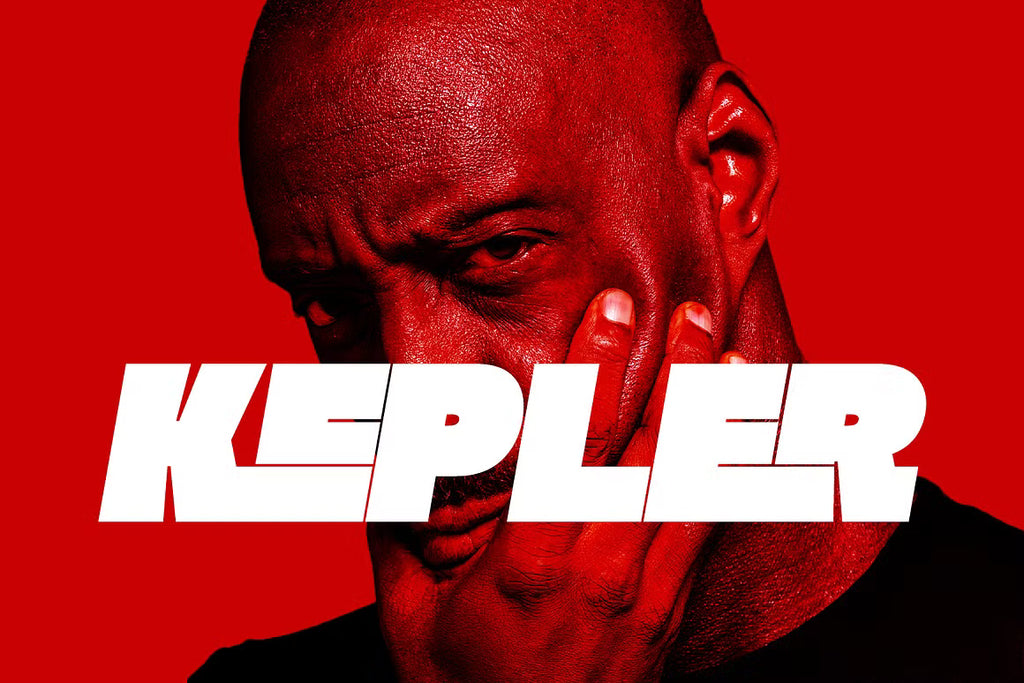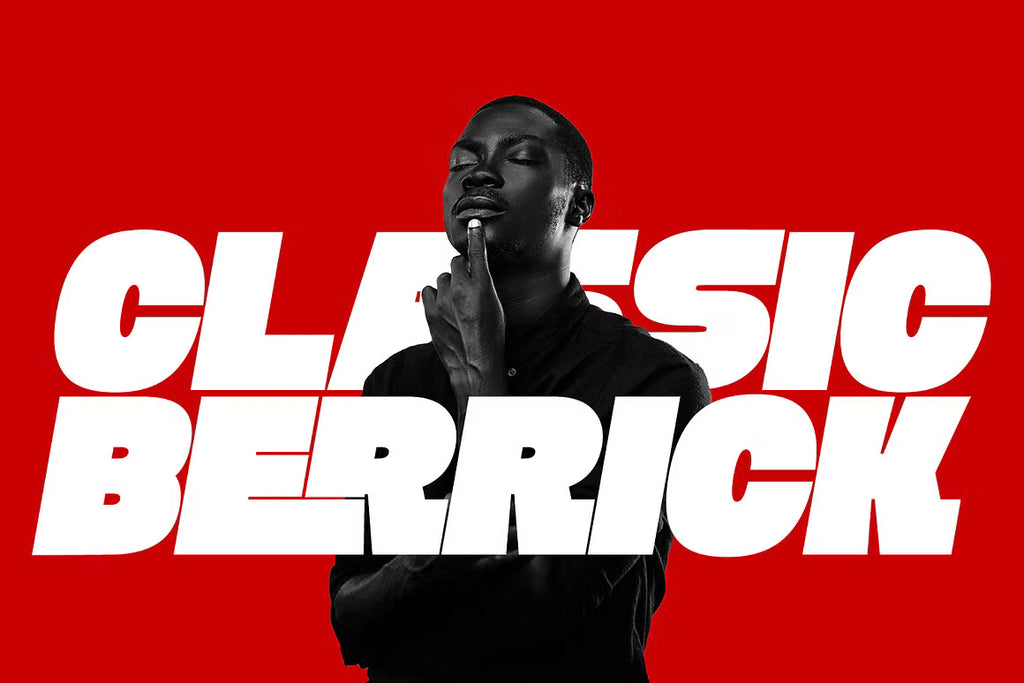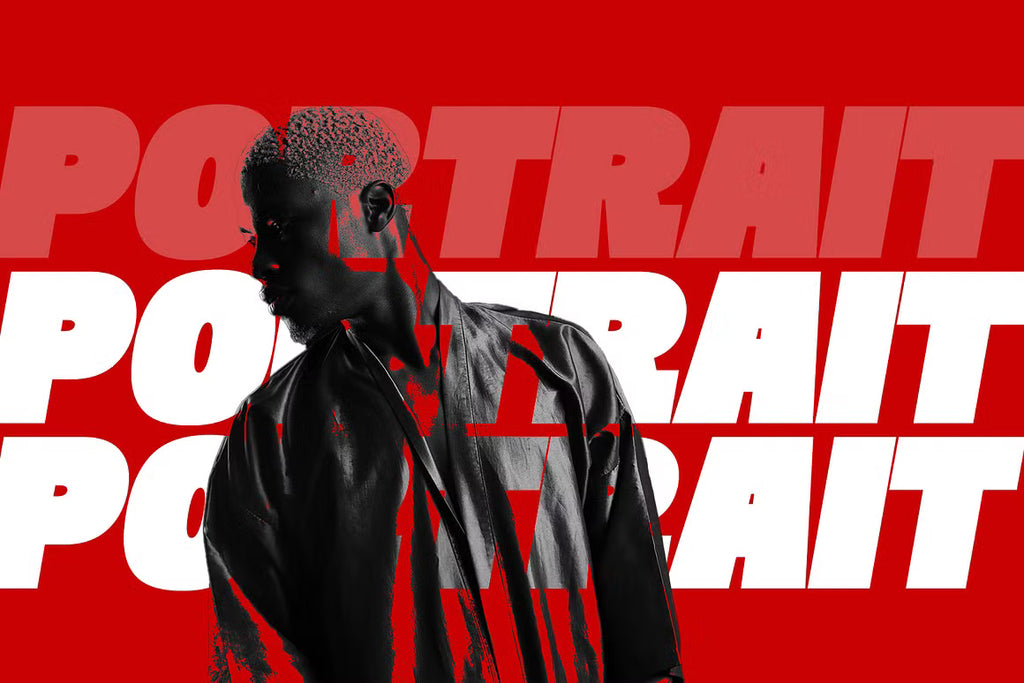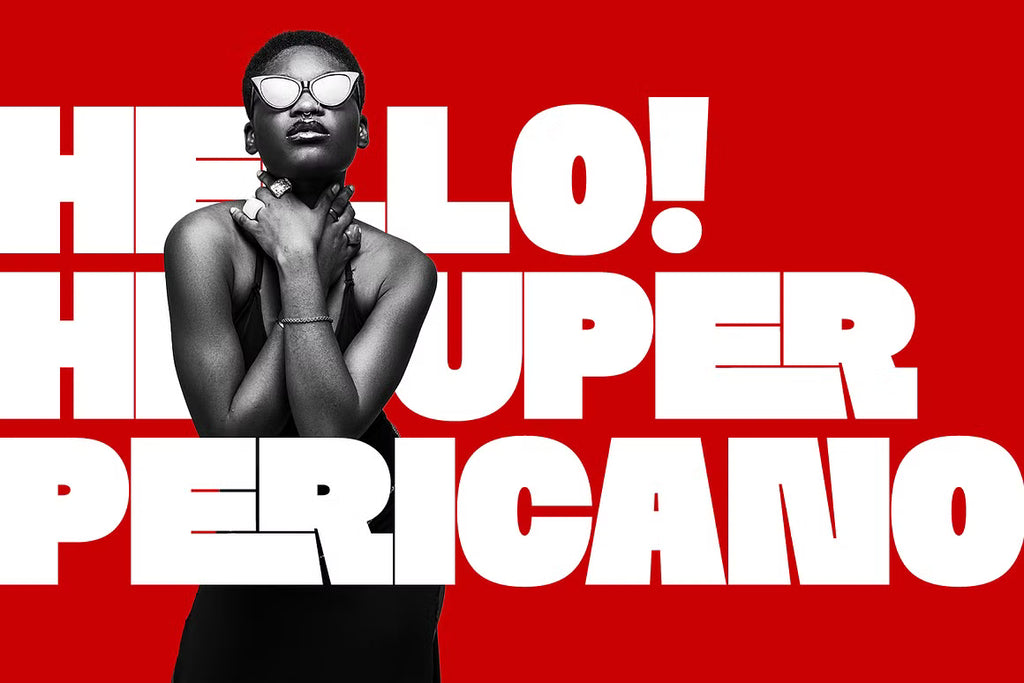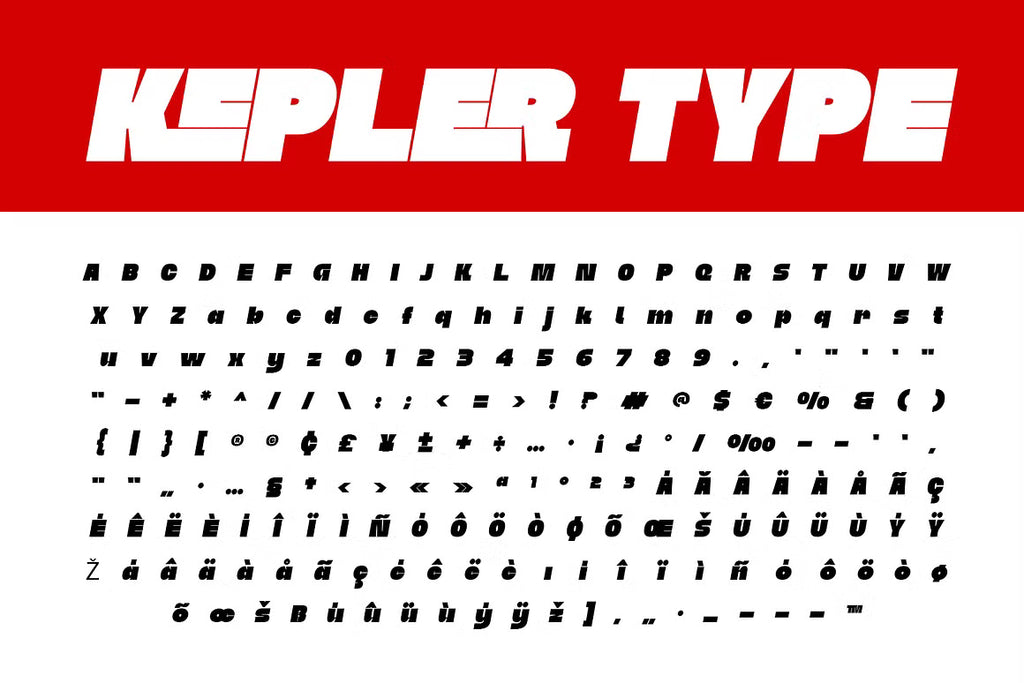
Kepler Display
Kepler is a powerful bold display typeface crafted to make your brand stand out with confidence. Designed for impactful headlines, striking logos, modern posters, and bold advertising, Kepler delivers a strong visual presence that grabs attention instantly. Its clean yet commanding style makes it the perfect choice for businesses, creative projects, and brand identities that demand boldness and clarity.
- Numerals, extended punctuation & Basic Symbols(200+ Glyphs).
- Uppercase Letters & Lowercase Letters